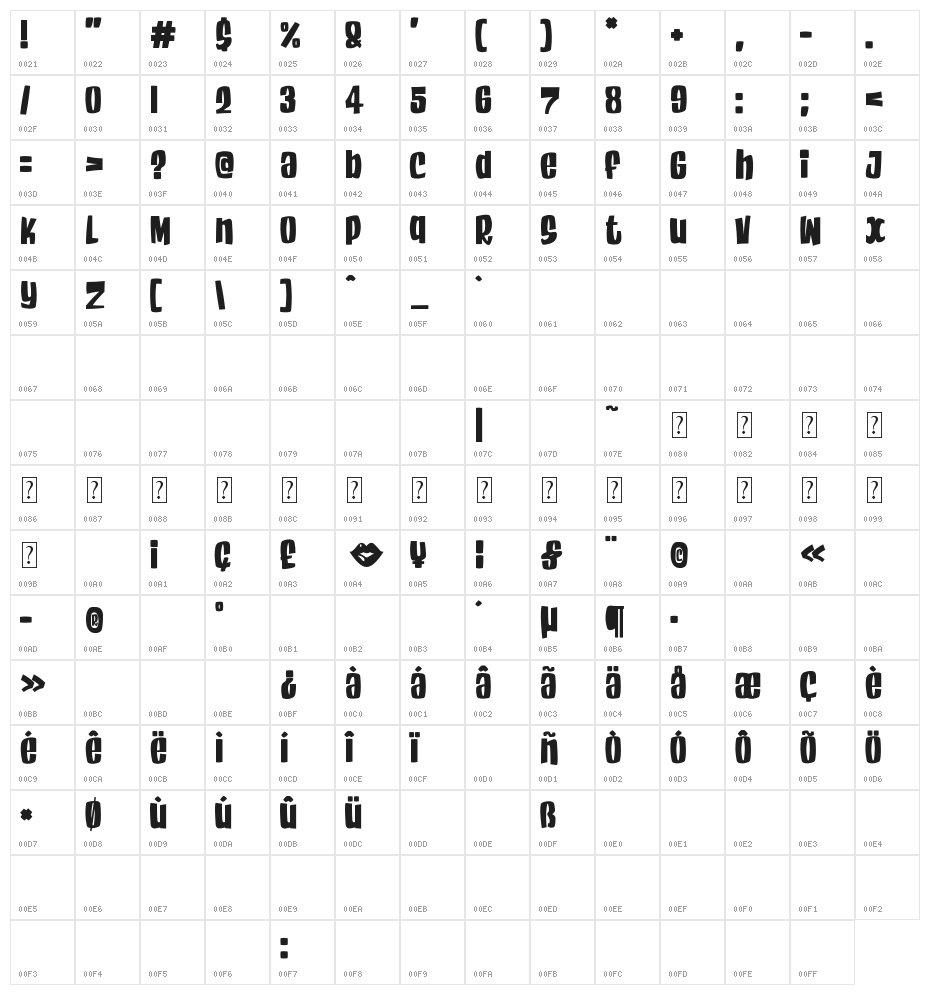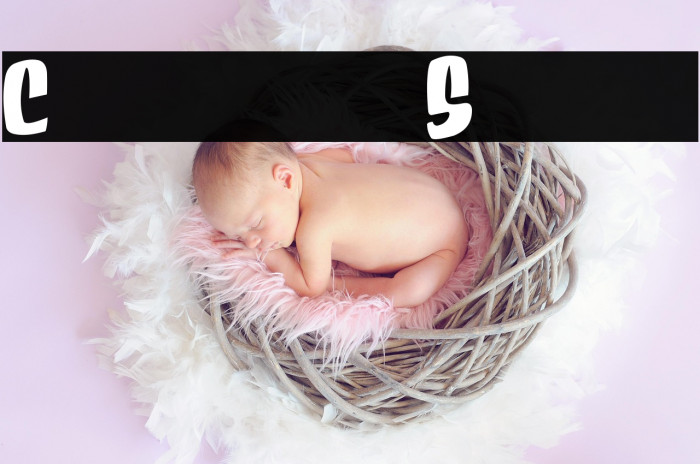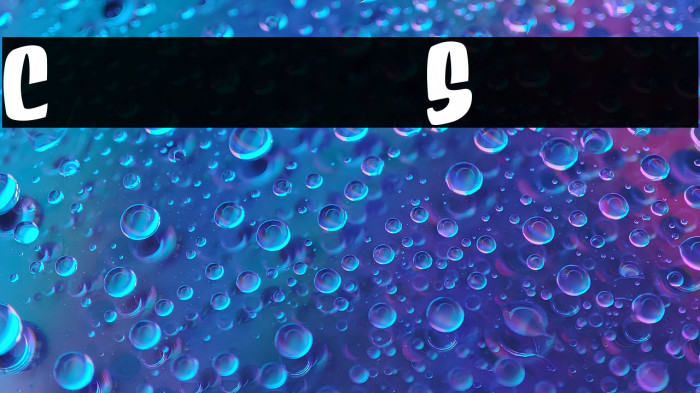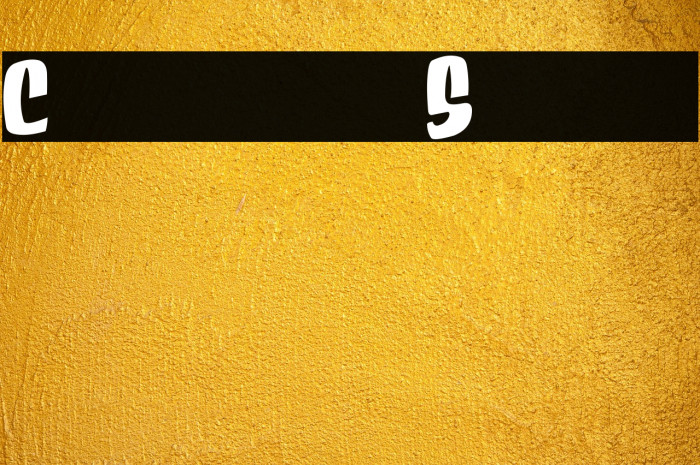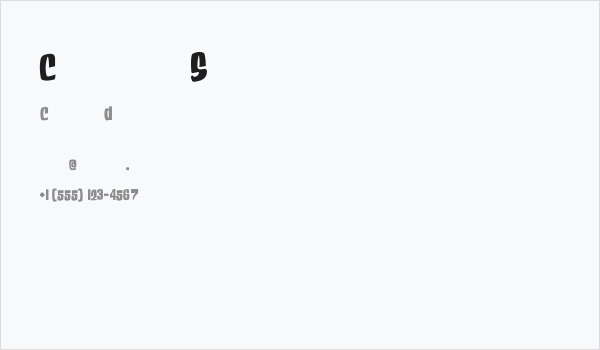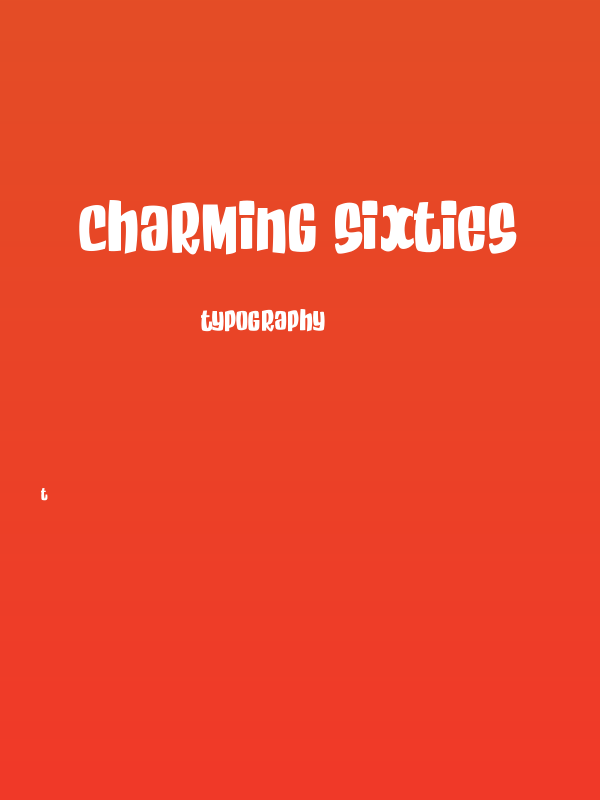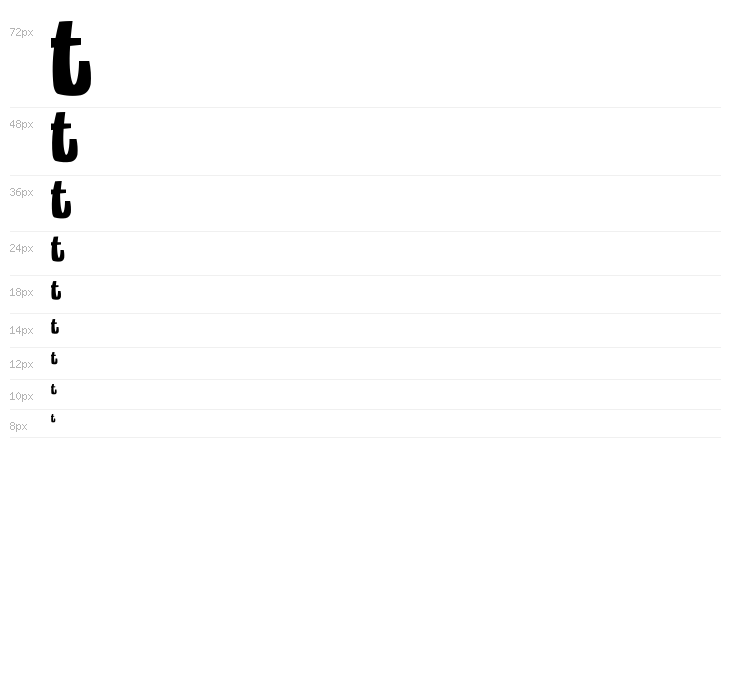
Charming Sixties Font
| Progetti proposti | Ideal for vintage-themed posters, playful branding, children's books, and retro-inspired designs. |
Charming Sixties